Street art has evolved from underground expression to mainstream design inspiration.
If you’re looking to capture that raw, urban energy in your next project, Google Fonts offers some excellent graffiti-style typefaces that bring authentic street vibes to digital design.
Here are ten standout options that’ll make your text pop off the page.
1. Creepster
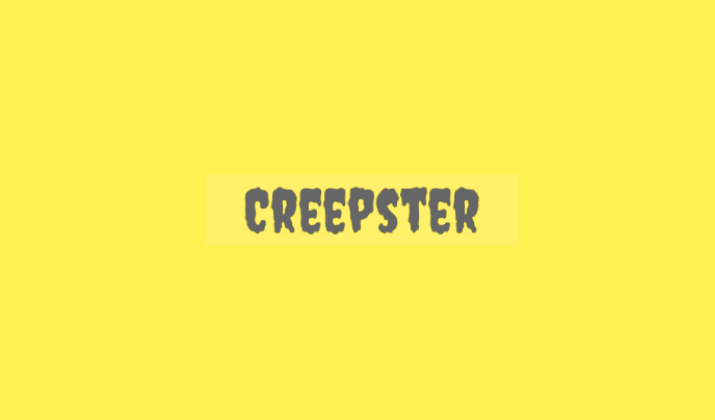
This horror-meets-street-art font delivers serious attitude with its dripping, distorted letterforms that look like they’ve been hastily spray-painted on a subway wall.
The defining characteristic is its “melting” effect – each letter appears to be dripping downward, creating an unsettling yet visually striking appearance.
The irregular baseline and weathered appearance give it that authentic spray-painted look that’s been aged by urban elements.
The font works particularly well at larger sizes where the dripping detail can be fully appreciated.
Best for: Event posters, album covers, horror-themed designs, Halloween projects, underground music venues
2. Bungee
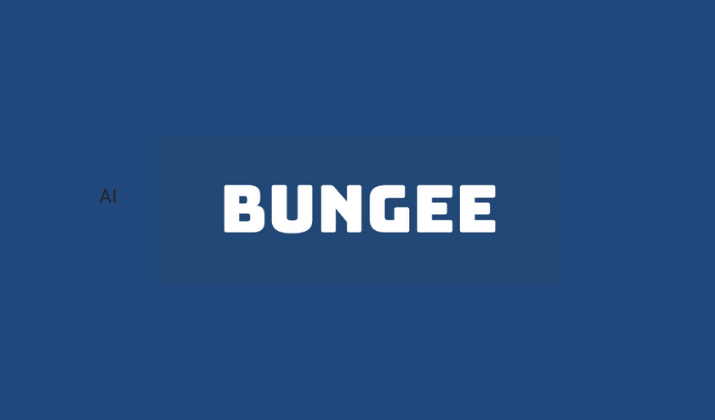
Bungee captures the essence of vintage signage and neon-lit cityscapes with a modern graffiti twist that feels both retro and contemporary.
The bold, condensed characters feature strong vertical emphasis that commands immediate attention, making it impossible to ignore.
The font family includes multiple variations like Bungee Shade, Outline, and Inline, allowing designers to create layered effects and dimensional text.
Its geometric construction gives it a structured, architectural quality that distinguishes it from more organic graffiti styles.
Best for: Logo design, concert posters, urban branding, sports team graphics, nightclub promotions
3. Permanent Marker
While not technically a traditional graffiti font, Permanent Marker masterfully captures the authentic quality of marker tags and quick street art pieces.
The font replicates irregular strokes, varying line weights, and slightly imperfect letterforms that occur naturally when writing with an actual permanent marker.
Its casual appearance makes it incredibly approachable while still maintaining street credibility.
The font bridges the gap between street culture and commercial design, making urban aesthetics accessible to mainstream audiences.
Best for: Casual branding, youth-oriented designs, social media graphics, skate shop branding, indie music promotions
4. Bangers
Inspired by comic book lettering and street art, Bangers delivers maximum impact with its powerfully bold, uppercase styling that practically explodes off the page.
The slightly condensed letterforms are engineered for maximum attention, with each character designed to grab and hold focus.
The heavy weight and strong presence make it perfect for situations where subtlety is not an option.
The font has a distinctly American feel, reminiscent of vintage advertising and mid-century graphic design with an urban edge.
Best for: Comic book designs, superhero themes, bold headlines, sports team branding, energy drink marketing, action movie posters
5. Kalam
This sophisticated handwritten font brings a refined approach to graffiti aesthetics with flowing, naturally connected letterforms that feel like elegant street calligraphy.
Letters connect and flow into each other naturally, creating words that appear written in confident, single strokes.
Available in multiple weights (Light, Regular, and Bold), Kalam provides flexibility for creating hierarchy while maintaining stylistic consistency.
The font bridges street culture and mainstream appeal, making it perfect for brands wanting authenticity without aggression.
Best for: Lifestyle brands, artistic projects, personal branding, creative studio identities, artisanal product packaging
6. Covered By Your Grace
With its casual, effortlessly handwritten appearance, this font captures the spontaneous nature of street art and quick urban tags.
The slightly irregular baseline and organic flow create movement and authenticity that feels genuinely hand-lettered.
Each letter appears naturally written without concern for perfect alignment, giving it a human quality that resonates emotionally.
The font feels friendly and accessible while maintaining rebellious street credibility, making brands appear more relatable and authentic.
Best for: Personal blogs, creative portfolios, informal designs, craft business branding, handmade product packaging
7. Gloria Hallelujah
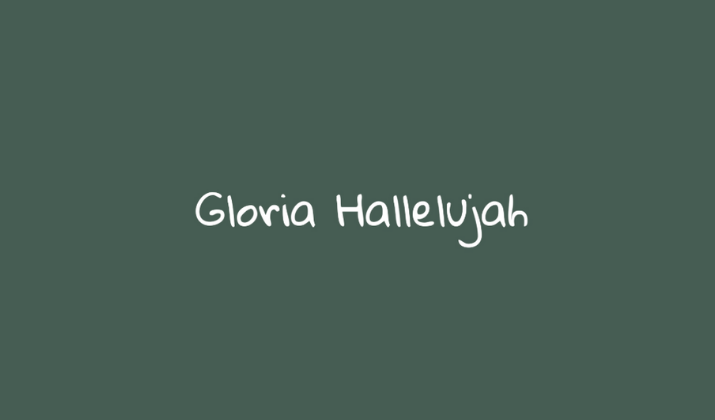
This playful, energetic hand-drawn font brings a lighter, more optimistic take on street art aesthetics that feels like joyful graffiti rather than rebellious tagging.
The bouncy, irregular letterforms create infectious movement and playfulness, with each character appearing to dance slightly.
Gloria Hallelujah conveys enthusiasm and positivity while maintaining street credibility, making it perfect for brands targeting younger audiences.
The slightly irregular spacing and organic flow make it feel genuinely hand-lettered with care and enthusiasm.
Best for: Children’s designs, casual branding, fun projects, educational materials, community art projects, youth program branding
Explore: Best Taylor Swift Fonts Behind Her Album Art
8. Amatic SC
Simple yet remarkably effective, Amatic SC offers a clean, minimalist take on hand-lettered typography that distills street art aesthetics down to essential elements.
The narrow, condensed styling creates vertical emphasis while slightly rough edges provide authentic, hand-drawn quality.
Available in regular and bold weights, it provides versatility for creating hierarchy while maintaining consistency.
The font embodies modern minimalist design trends while maintaining enough character to feel genuinely hand-crafted rather than sterile.
Best for: Hipster branding, artisanal products, minimalist designs, coffee shop menus, craft brewery branding, boutique retail
Explore: Best MS Fonts Without Serif
9. Shadows Into Light
This font captures the spontaneous, flowing nature of street art with its casual handwritten style that feels like authentic personal expression.
The slightly slanted letterforms and organic flow create forward movement and natural rhythm that makes text feel alive.
Shadows Into Light avoids forced “distressed” looks in favor of natural, organic imperfections that feel completely unforced.
The font strikes an excellent balance between street credibility and mainstream appeal, making it suitable for projects needing personal authenticity.
Best for: Personal projects, artistic brands, creative portfolios, independent musician branding, art studio signage, personal blog headers
10. Patrick Hand
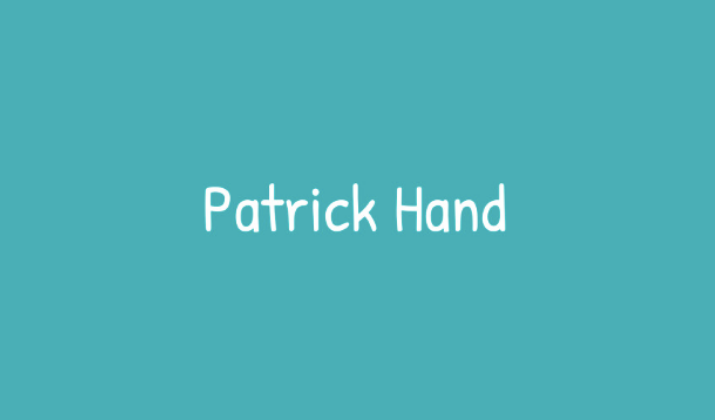
Rounding out our list, Patrick Hand offers a refined take on handwritten typography with subtle graffiti influences that balance professionalism with personality.
The clean lines and consistent styling demonstrate careful attention to legibility while retaining enough character to feel genuinely hand-crafted.
Despite its refinement, the font maintains authentic hand-drawn quality that makes brands appear approachable and human.
Patrick Hand embodies the trend toward humanizing digital communication while maintaining the clarity required for professional applications.
Best for: Professional designs with personality, educational materials, friendly branding, healthcare communications, non-profit organizations, service-based businesses
Also Read: Most Common Fonts & When To Use Them
Tips for Using Graffiti-Style Fonts
Here are some tips on using these fonts effectively.
Keep It Readable
While these fonts pack visual punch, readability should always be your priority. Use graffiti-style fonts for headlines and accent text, pairing them with cleaner fonts for body text.
Less Is More
Graffiti fonts work best when used sparingly. A little goes a long way in creating impact without overwhelming your design.
Consider Your Audience
Make sure your font choice aligns with your brand and audience. What works for a skateboard company might not work for a law firm.
Pair Thoughtfully
Combine graffiti-style fonts with clean, simple typefaces to create balance. Good pairings include Roboto, Open Sans, or Lato for body text.
Explore: Aesthetic Fonts For Vision Boards & Journaling
Conclusion
These Google Fonts offer legitimate ways to incorporate street art aesthetics into your designs without the legal or practical challenges of actual graffiti.
Whether you’re designing for youth culture, urban brands, or just want to add some edge to your project, these typefaces provide authentic street vibes that translate beautifully to digital and print media.
The key to using any bold typography is restraint and context. Use these fonts strategically to create impact while maintaining readability and brand appropriateness.